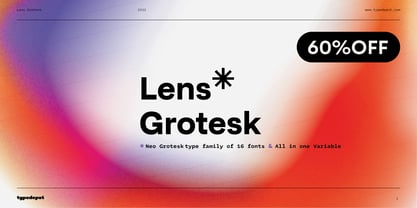
Lens Grotesk
by Typedepot
Lens Grotesk is a Neo-grotesque type family of 16 fonts born as a result of a very conscious research in the field of the neutral Swiss aesthetic. There's a reason for all the prominent examples of this design like Helvetica and Univers to be used on a daily basis for more than 70 years and it's a simple one - they just work.
The closed terminals, the low contrast, uniform widths and proportions makes the Neo-grotesques feel just right. Although very often branded as stiff, the neutral Neo grotesques are here to stay and Lens Grotesk is our own reading of the popular style.
Lens Grotesk takes the Neo-grotesk model one step further adding a pinch of Geometric sans-serif to the mix thus creating a way more modern and contemporary looking design. Characterized with more generous oval proportions and slightly more open terminals, Lens Grotesk keeps the modulation and rhythm needed for a slightly longer texts while visibly keeping everything in order. Zooming in you'll find traces of the Geometric aesthetic - the robust almost right angled approach of the arches and tails (look t, f, j, y) and the way more circular rounded shapes.
Like all our fonts, Lens Grotesk is equipped with a range of OpenType features, stylistic alternatives and of course Cyrillic support. It comes in a pack of 16 fonts with 8 styles and their matching italics or one variable font file available with all full family purchases.